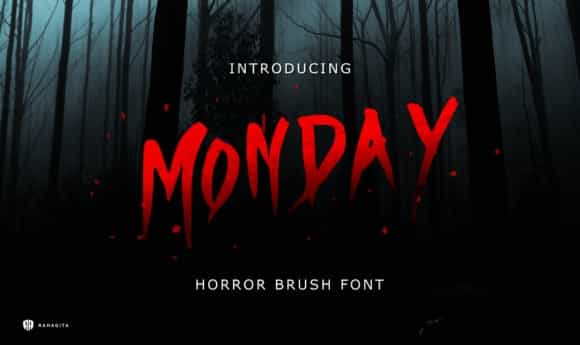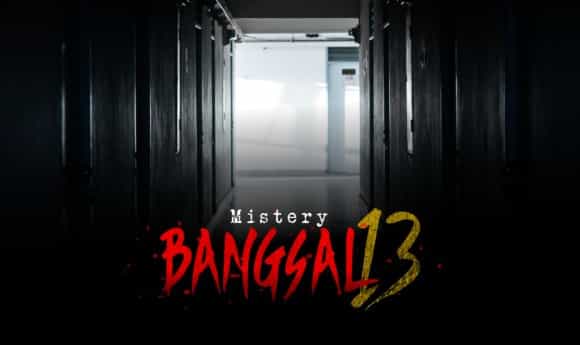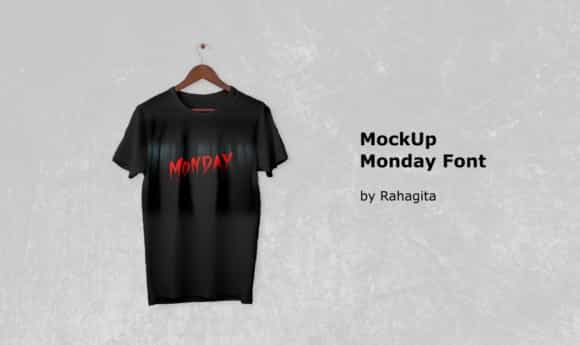
Monday is handwriting horror font. This is perfect for logos, name tag, handwritten quotes, product packaging, merchandise, social media, and greeting cards. It is also very simple to design t-shirts and other products that you need. Extremely useful in setting the time for the creation of the design of a product.